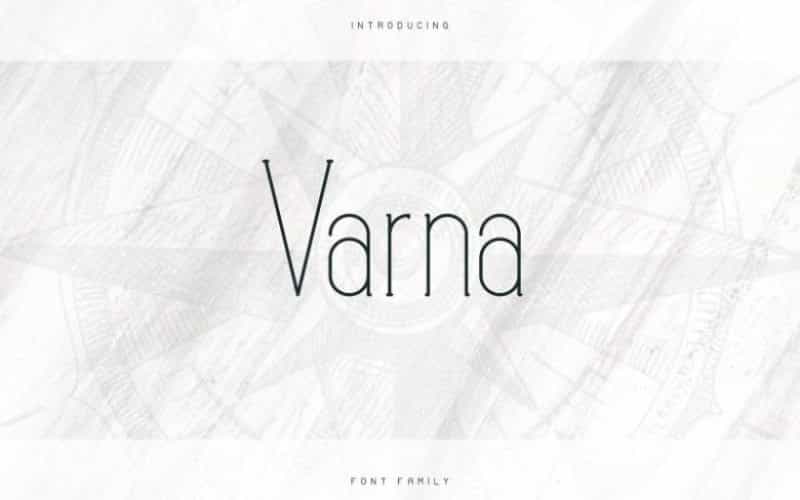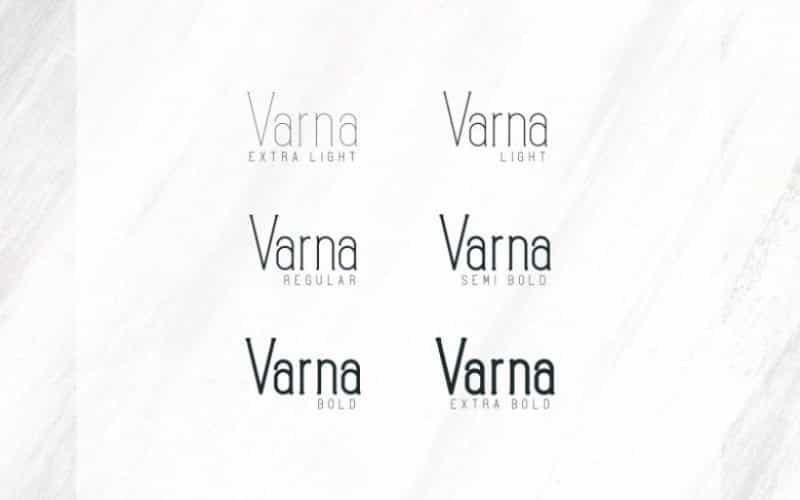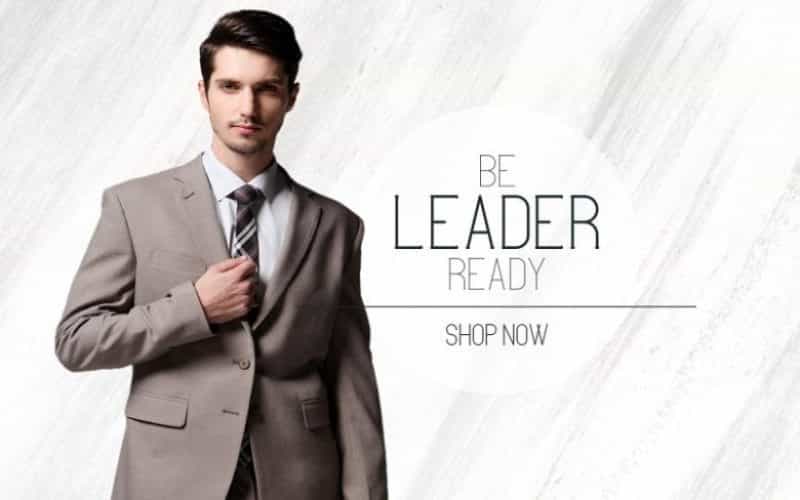
Varna is a clear, high typeface that has 6 fonts and can be used in different languages. It is a very adaptable font that looks perfect in big and small sizes. Varna is the best for branding projects, home-ware designs, product packaging, magazine headers – or just as a beautiful text overlay to any background image.